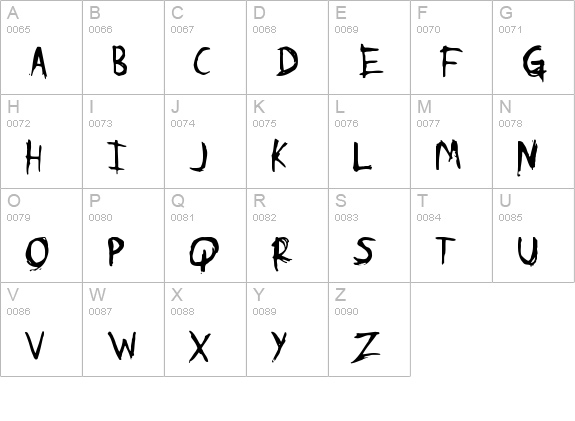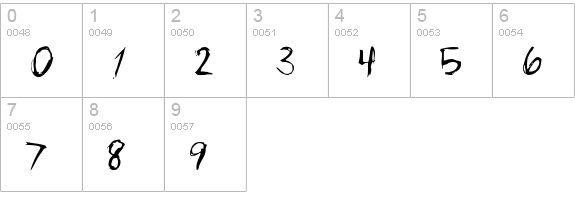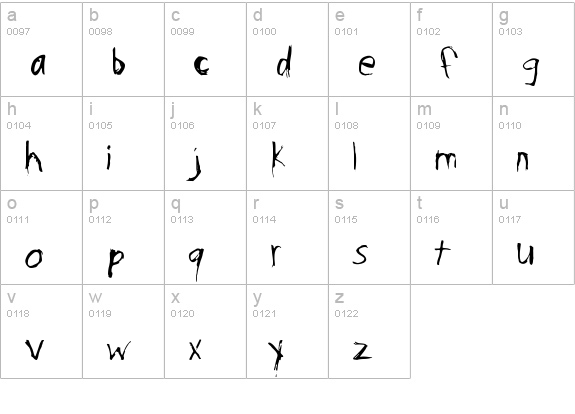
Psycho Poetry Font Details
Introducing Psycho Poetry font, a captivating and edgy typeface that exudes creativity and intensity. This unique font combines bold and intricate lettering to create a striking visual impact. Perfect for adding a touch of drama to your designs, Psycho Poetry font is ideal for posters, album covers, and artistic projects. With its unpredictable and dynamic appearance, Psycho Poetry font is sure to make a bold statement. Whether you're looking to convey a sense of mystery or evoke a sense of rebellion, this font has you covered. Its expressive strokes and sharp angles give your text a raw and powerful feel. Best of all, Psycho Poetry font is available for free download at FontsMarket.com. This means you can unleash your creativity without worrying about breaking the bank. Don't miss out on this opportunity to add a touch of unconventional style to your projects with Psycho Poetry font. Download it now and let your imagination run wild.